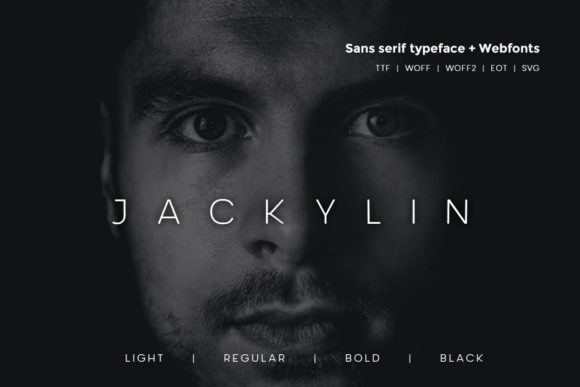
Unleash the Power of Jackylin: The Font That Commands Attention and Leaves a Lasting Impression
In the competitive world of resumes, first impressions matter. Your resume is your chance to showcase your skills, experience, and personality to potential employers. With so many resumes vying for attention, it's crucial to stand out from the crowd. Jackylin, the modern and minimalist sans serif font, is your secret weapon to create a resume that commands attention and leaves a lasting impression.
Picture this: your resume, adorned with the elegant simplicity of Jackylin, effortlessly guides the reader's eyes to the essential details. The clean lines and understated sophistication of Jackylin create a visual harmony that makes your words shine. Its carefully crafted characters exude professionalism, while the subtle curves add a touch of warmth and personality.
With Jackylin as your font ally, you'll craft a resume that speaks volumes about your attention to detail, creativity, and desire to make a mark. It's not just a font; it's a powerful tool that elevates your resume from ordinary to extraordinary.
Imagine the satisfaction of watching hiring managers linger over your resume, captivated by the visual appeal and clarity of Jackylin. The font's crispness and readability ensure that your skills and accomplishments are front and center. No more struggling with hard-to-read fonts that distract from your message.
Jackylin is not just visually stunning; it's also incredibly versatile. Whether you're crafting a resume for a corporate position, a creative role, or anything in between, Jackylin seamlessly adapts to your unique style and industry. Its understated elegance and timeless appeal make it the perfect choice for professionals seeking to make a strong and lasting impression.